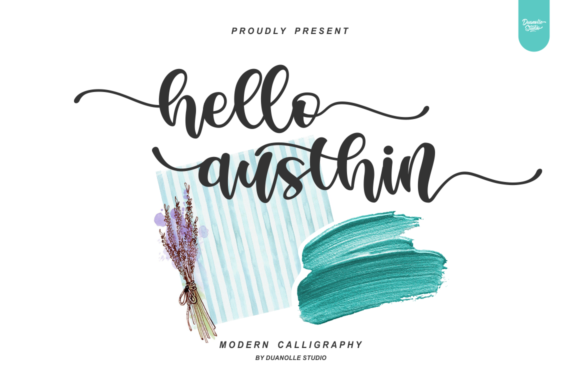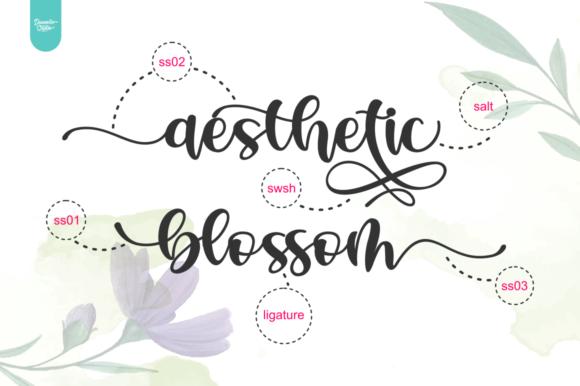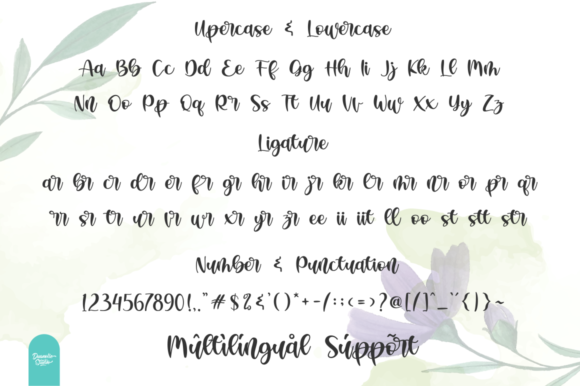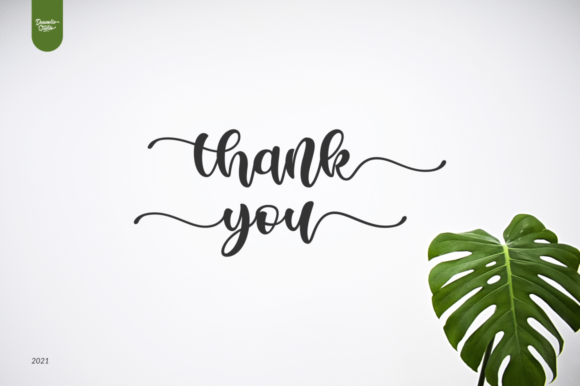
About Hello Austhin Font
Hello Austhin is a striking and eye-catching handwritten font that adds a touch of uniqueness and personality to your designs. Its distinct and eye-catching style makes it a perfect choice for projects that require a personalized and attention-grabbing touch, such as wedding invitations, thank you cards, weddings, and greeting cards.
The bold and expressive letterforms of Hello Austhin command attention and leave a lasting impression. Its intricate details and artistic flair make it stand out from more traditional and conventional fonts, giving your designs a one-of-a-kind look.
With its PUA encoding, Hello Austhin provides easy access to all of its glyphs and swashes. This allows you to explore its full range of decorative elements and flourishes, giving you the freedom to create unique and elaborate designs that suit your specific project.
The font’s versatility allows it to shine in various design applications. From logos and branding materials to social media graphics and stationery, Hello Austhin can add a touch of creativity and individuality to any project.
Whether used in elegant and sophisticated designs or in bold and playful compositions, Hello Austhin adapts effortlessly to various styles and themes, making it a versatile choice for designers.
In conclusion, Hello Austhin is a unique and eye-catching handwritten font that brings a sense of artistry and individuality to your designs. Its bold and expressive style allows you to create attention-grabbing and personalized designs that leave a lasting impact. Embrace the creativity of Hello Austhin and use its extensive glyphs and swashes to craft unique and memorable designs for your various projects.